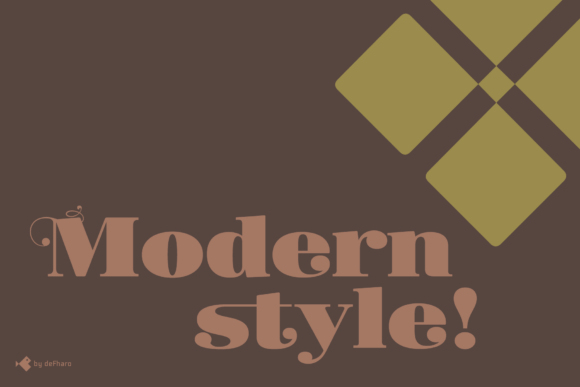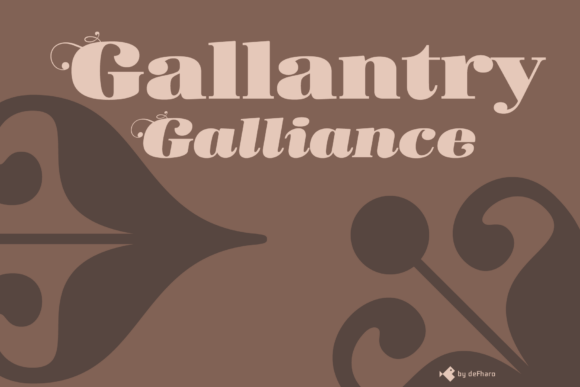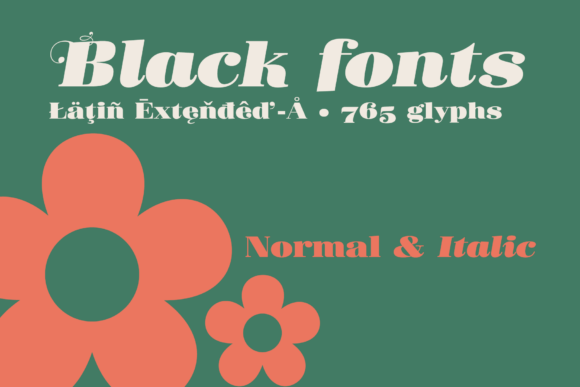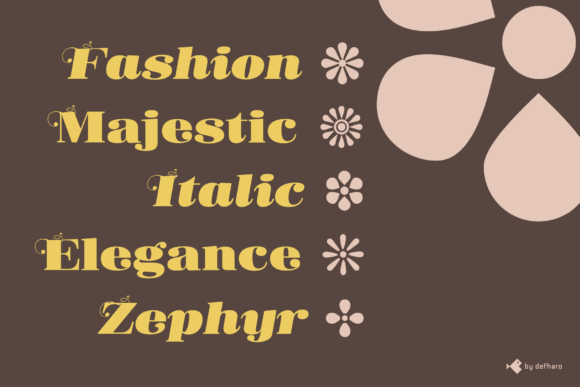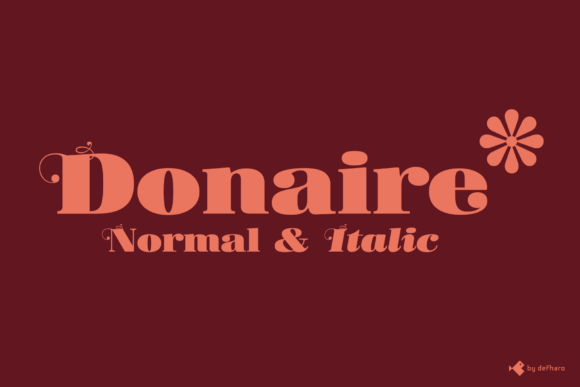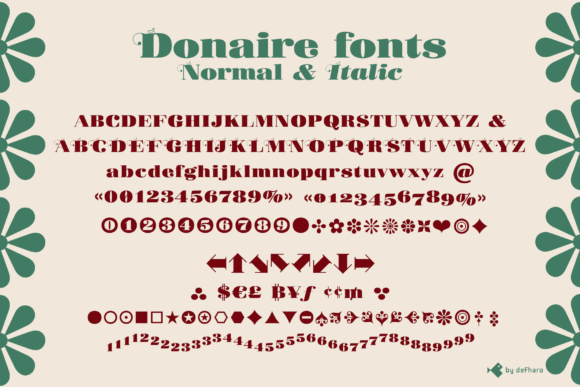
The Donaire Font: A Designer’s Dream Come True
I’ll never forget the project that led me to discover the Donaire font. I was working on a luxury brand’s marketing materials, and my client requested a font that exuded elegance, sophistication, and a touch of playfulness. I scoured the internet, tried countless fonts, but nothing seemed quite right. That was until I stumbled upon Donaire. With its unique blend of thick and thin lines, ornate details, and impeccable balance, it was love at first sight. In this article, I’ll share my experience with Donaire, its features, and how to make the most of this stunning font.
- ✨ The perfect balance between legibility and visual impact, making it ideal for headings and titles.
- ✅ The square proportion and thick vertical lines give it a sense of strength and stability.
- 😍 The delicate transitional serifs and teardrop endings add a touch of elegance and sophistication.
- 🎉 The inclusion of ornate drop caps, arrows, and other embellishments takes the design to the next level.
While Donaire is an exceptional font, it’s not without its quirks. For instance:
- ⚠️ Some users may find the font a bit too ornate for body text, which is true. Donaire shines brightest in headings and titles.
The story behind Donaire’s creation is shrouded in mystery, but it’s said that the font’s designer was inspired by the ornate details of Baroque architecture and the elegance of fine jewelry. The result is a font that exudes luxury, sophistication, and refinement.
Q: What is the best use for Donaire?
A: Donaire shines brightest in headings and titles, where its unique features and ornate details can be showcased.
Q: Is Donaire suitable for body text?
A: While Donaire can be used for body text, it may not be the best choice due to its ornate features and delicate details. It’s better suited for headings and titles.
Q: Is Donaire available in different weights or styles?
A: Donaire comes in a range of weights and styles, allowing you to experiment with different variations to suit your design needs.